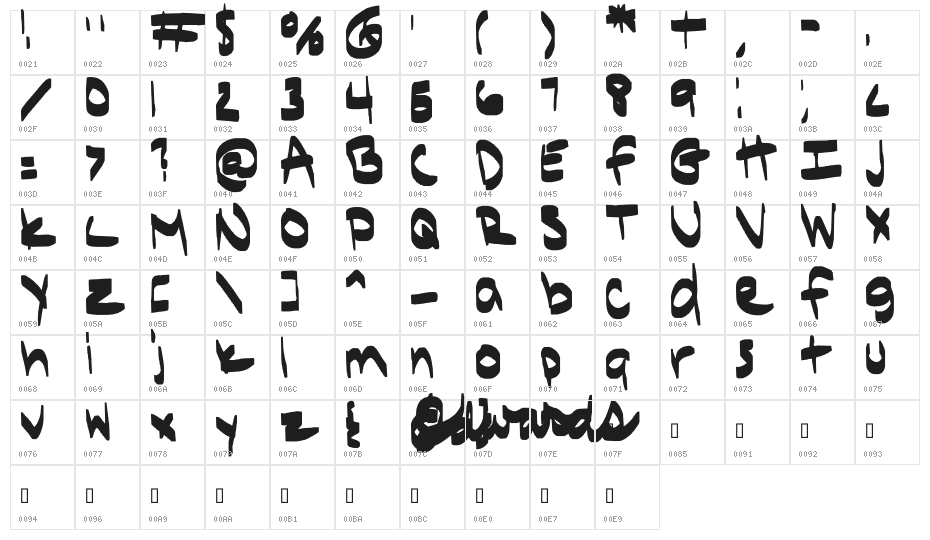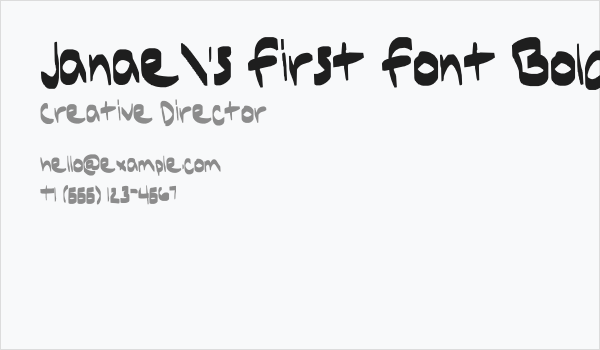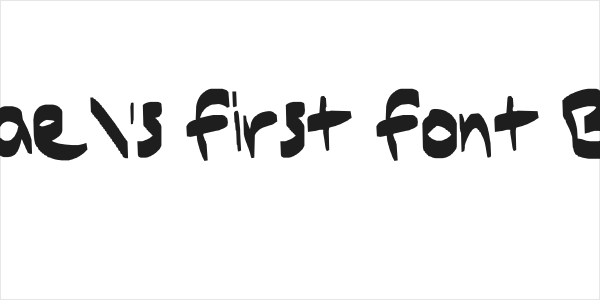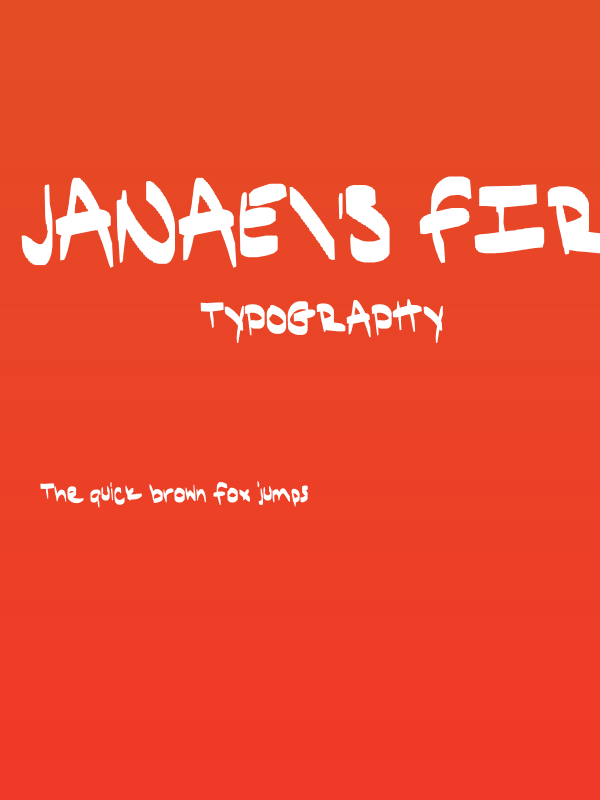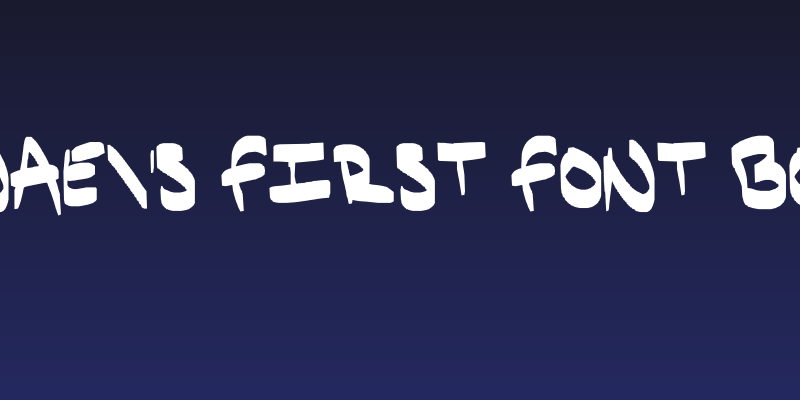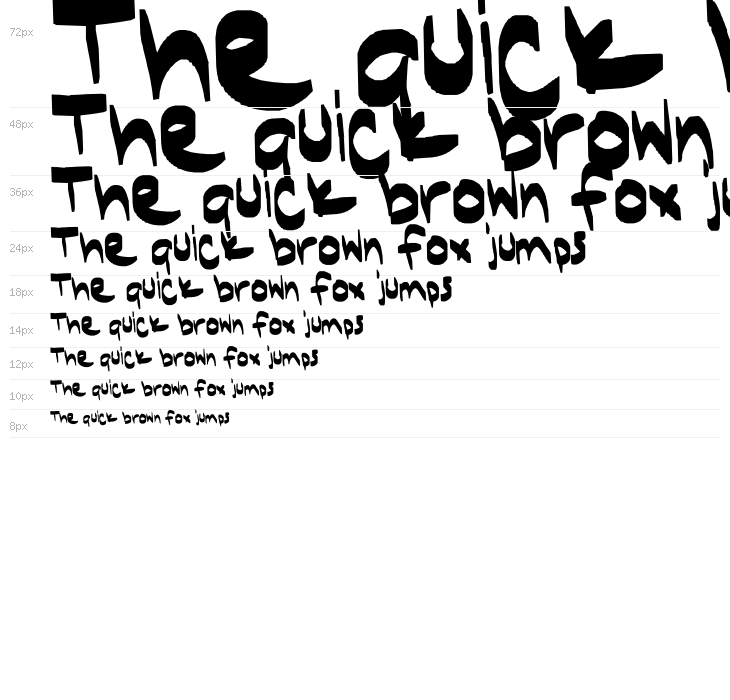
Janae's First Font Bold Font
Janae's First Font Bold Description
This font features a bold and expressive handwritten style, characterized by its thick strokes and irregular, playful forms. The letters have a dynamic and energetic appearance, with varying heights and widths that give it a spontaneous and artistic feel. The uppercase and lowercase letters maintain a consistent boldness, while the numbers and special characters complement the overall aesthetic with their robust and quirky design. This font captures a sense of creativity and individuality, making it stand out in any design project.
| Proposed Projects | Ideal for creative projects such as posters, album covers, children's books, and branding that requires a personal and artistic touch. |